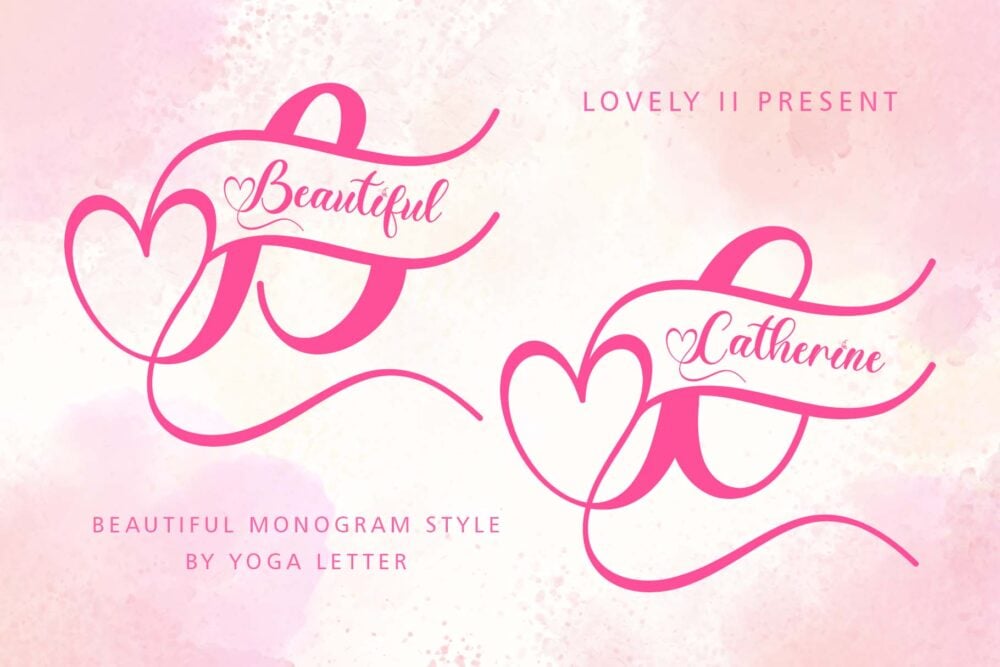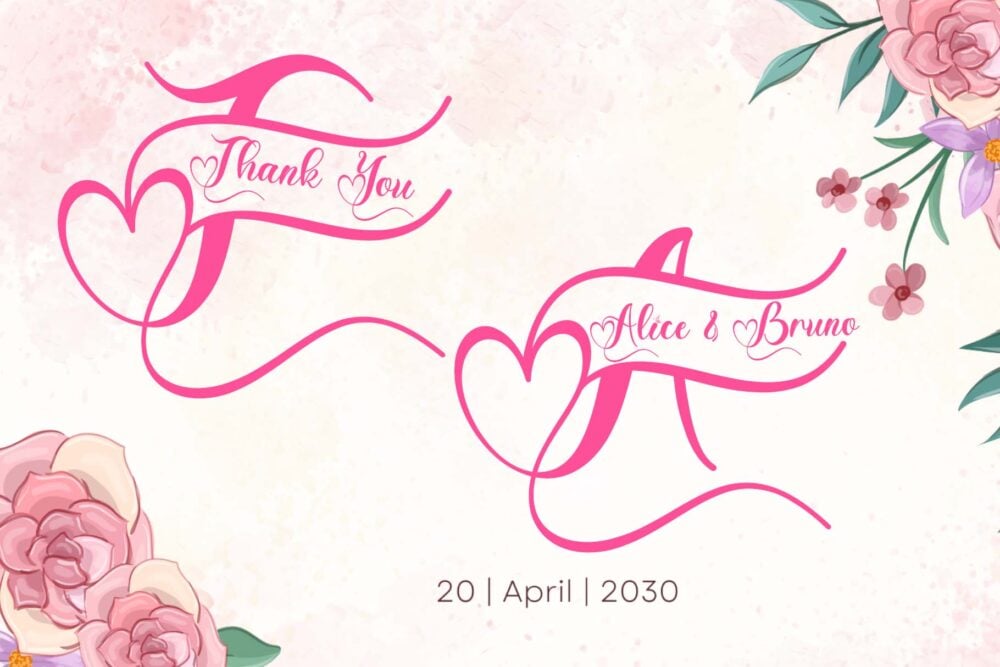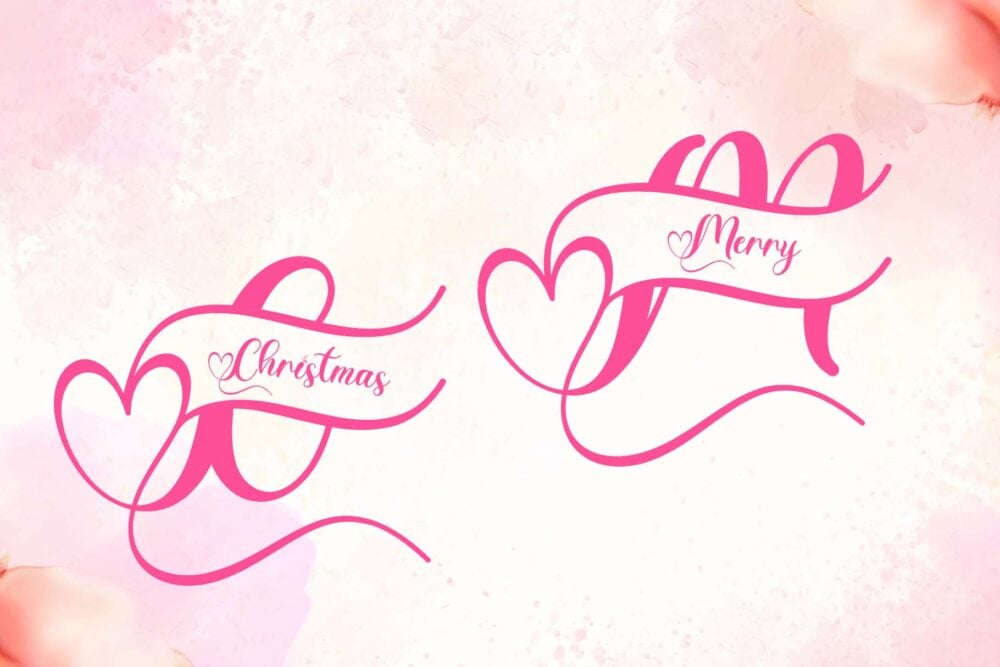
Beautiful Catherine Font
Beautiful Catherine font is a romantic and feminine typeface characterized by its flowing script and delicate curves. Its design evokes a sense of elegance and grace, making it perfect for wedding invitations, romantic cards, and other special occasions. The font’s intricate details and soft lines create a visually appealing and feminine aesthetic.